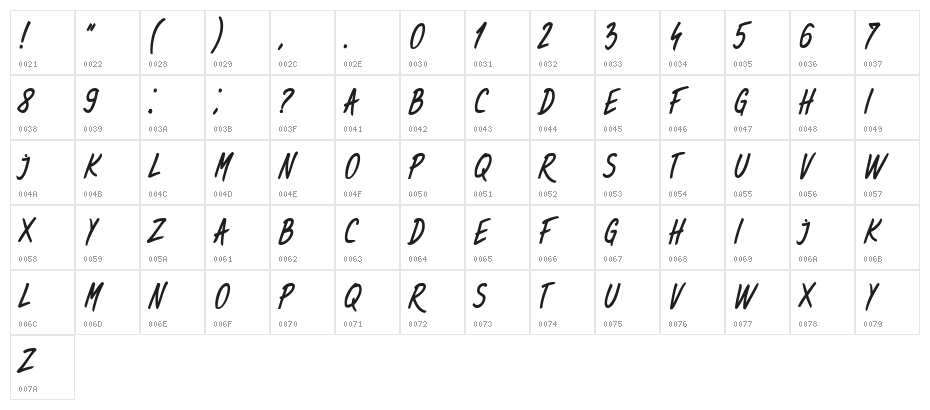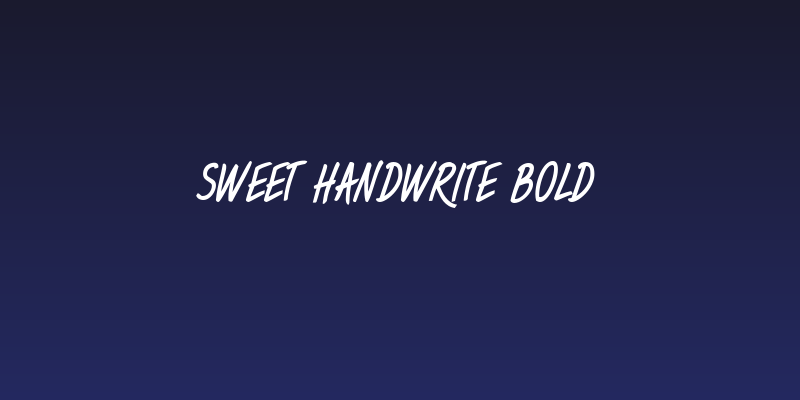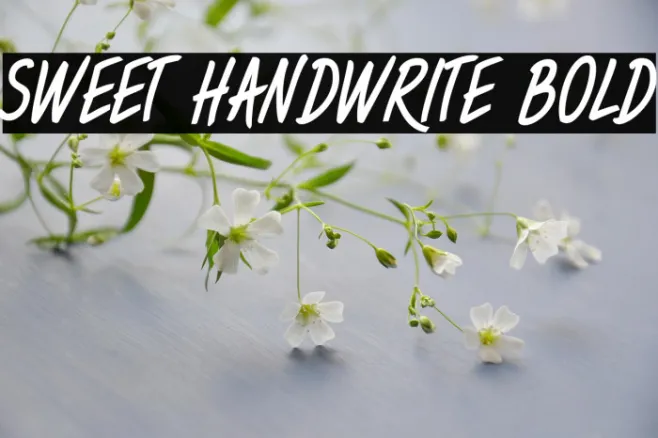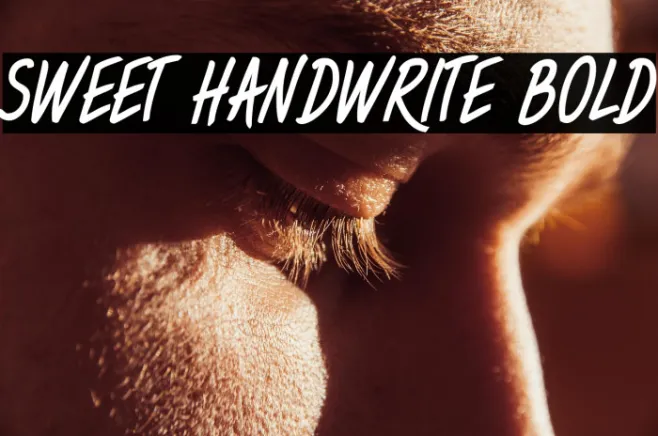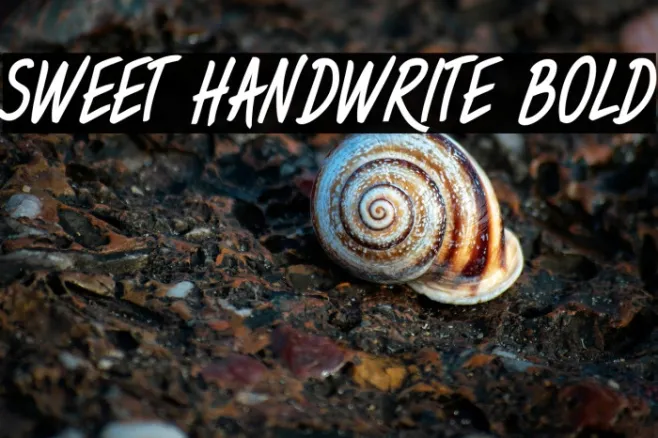
Sweet Handwrite Bold Font
Sweet Handwrite Bold Description
A bold, handwritten font with a playful and energetic style, featuring smooth curves and a slightly slanted orientation.
| Overall Style | Playful, Energetic |
| Proposed Projects | Greeting cards, invitations, playful branding. |